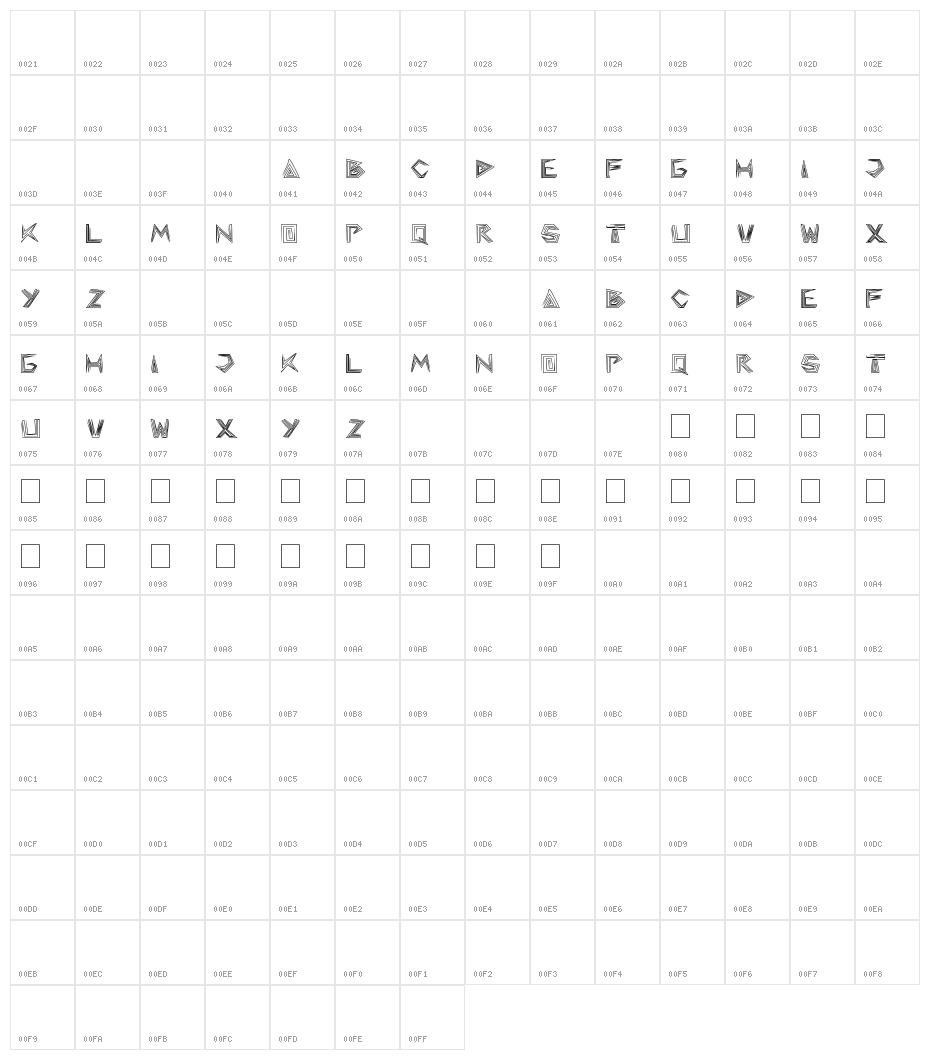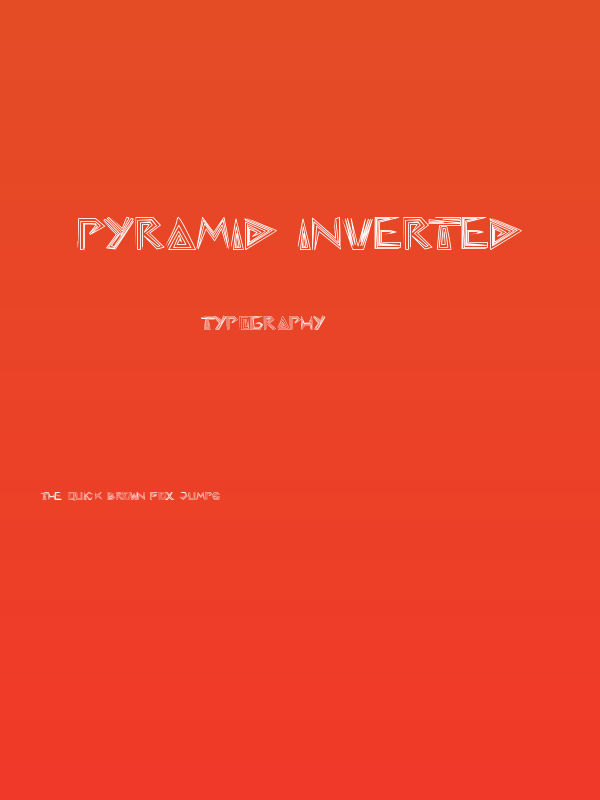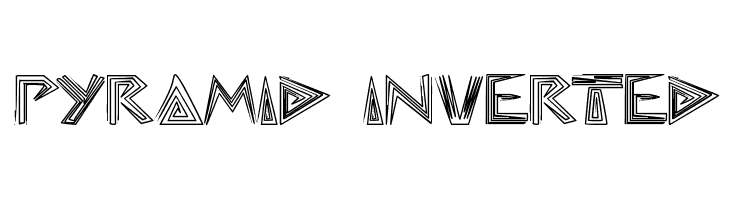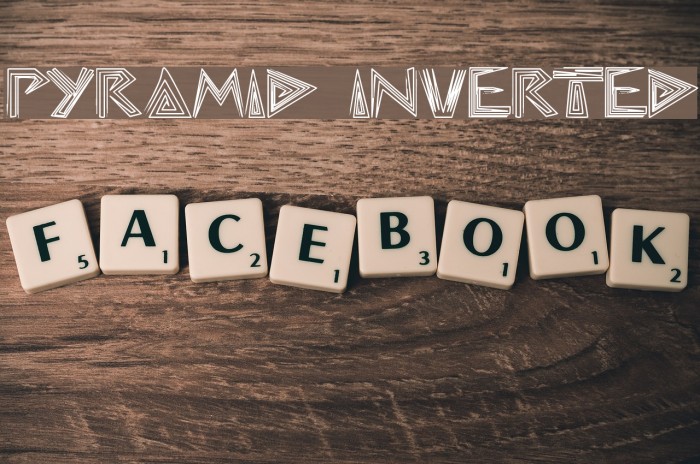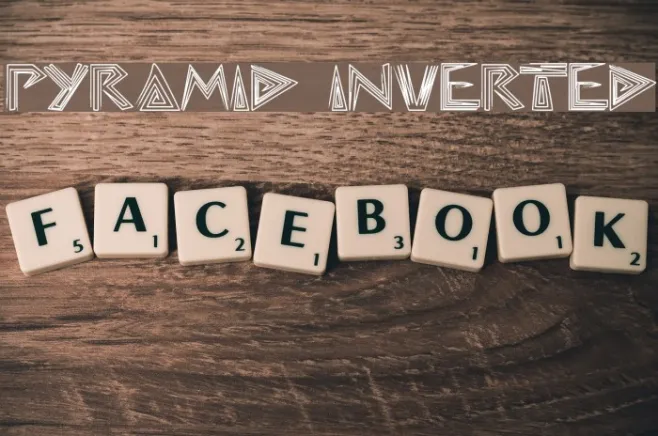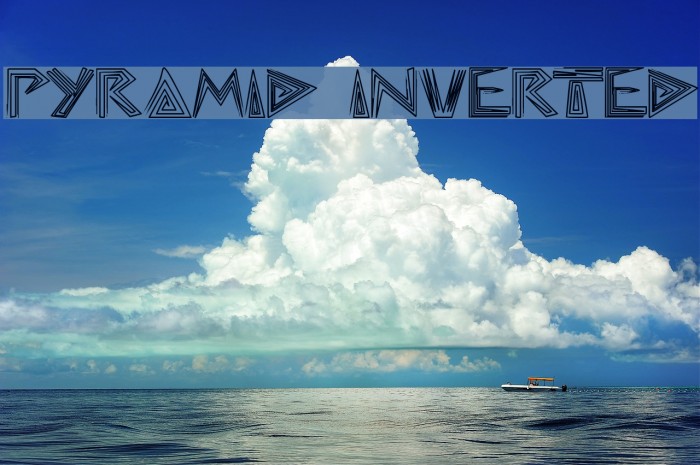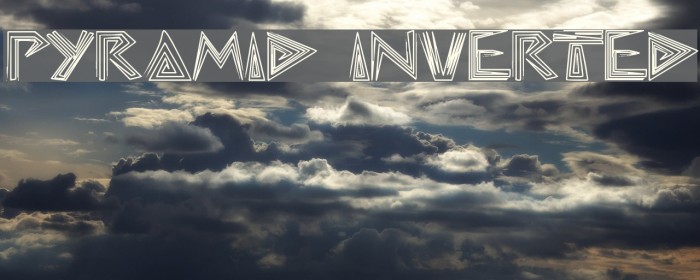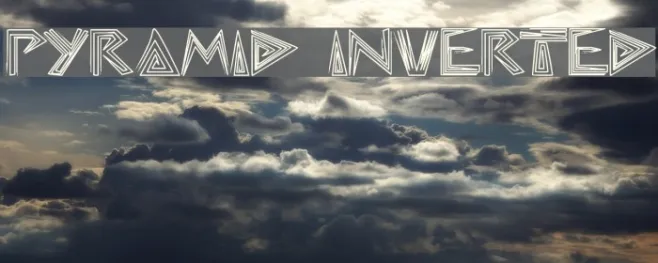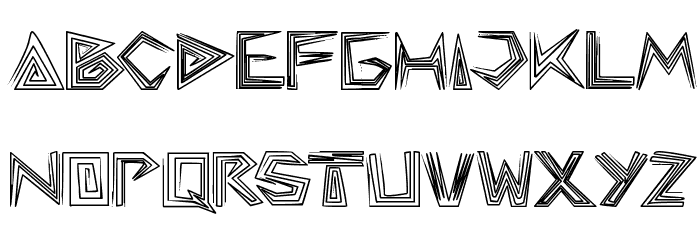
pyramid inverted Font
pyramid inverted Description
This font features a unique and intricate design, characterized by its geometric and angular shapes. Each letter is composed of multiple overlapping lines that create a sense of depth and complexity. The style is reminiscent of architectural structures, with a strong emphasis on sharp angles and bold outlines. The font maintains a consistent pattern throughout, giving it a cohesive and striking appearance. It is highly decorative and eye-catching, making it suitable for projects that require a standout visual element.
| Proposed Projects | Ideal for posters, album covers, branding projects, and any design requiring a bold, architectural aesthetic. |